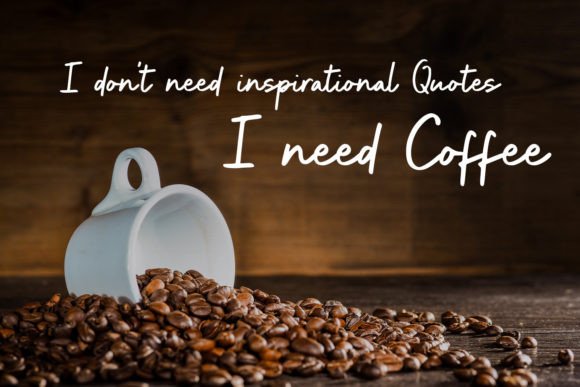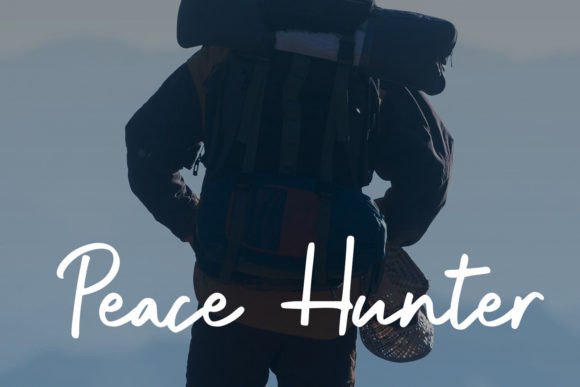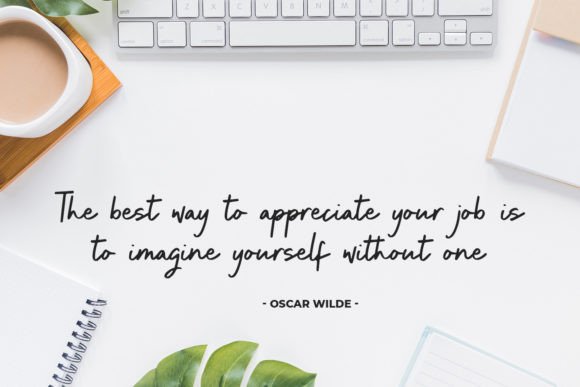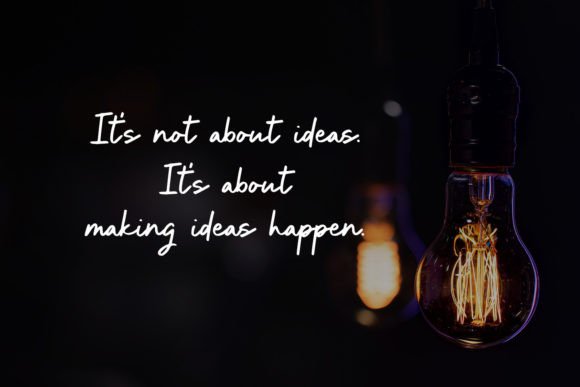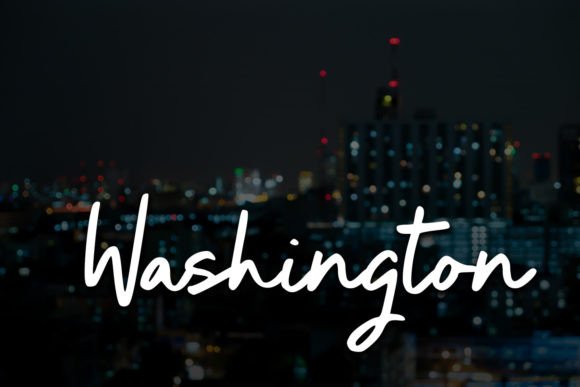
Discover the Charm of Authenticity Font: Elevate Your Designs with a Casual Handwriting Touch
In the world of typography, fonts play a crucial role in conveying the tone and personality of a design. For designers and crafters looking to add a personal touch to their projects, the Authenticity font is a gem worth exploring. This casual handwriting font is perfect for a variety of applications, from quotes and cards to banners and social media posts. In this article, we’ll dive into the details of the Authenticity font, its features, and how you can incorporate it into your designs to give them a simple yet elegant flair.
What is Authenticity Font?
Authenticity font is a beautifully crafted casual handwriting font designed to bring a sense of warmth and personality to your designs. Its unique, flowing script is reminiscent of handwritten text, making it perfect for projects that require a personal touch. Whether you’re working on a quote, a greeting card, or a social media post, the Authenticity font is sure to add a touch of elegance and sophistication.
Key Features of Authenticity Font
So, what makes the Authenticity font stand out? Here are some of its key features:
- Casual Handwriting Style: The Authenticity font boasts a casual, handwriting-like style that’s perfect for creating a personal connection with your audience.
- Elegant and Simple: Despite its casual nature, the font is elegant and simple, making it versatile for various design applications.
- Easy to Read: The font’s clear and flowing script ensures that your text is easy to read, even at smaller sizes.
- Versatile: From quotes and cards to banners and social media posts, the Authenticity font can be used in a wide range of design projects.
Uses of Authenticity Font
The Authenticity font is incredibly versatile and can be used in a variety of design projects. Here are some ideas to get you started:
- Quotes: Add a personal touch to your quotes with the Authenticity font. Its elegant script is perfect for making inspirational and thought-provoking quotes stand out.
- Cards: Whether you’re designing greeting cards, thank-you cards, or birthday cards, the Authenticity font is a great choice for adding a personal touch.
- Banners: Create eye-catching banners for events, promotions, or announcements with the Authenticity font. Its clear and elegant script is sure to grab attention.
- Social Media: Use the Authenticity font to create engaging social media posts that stand out from the crowd. Its casual yet elegant style is perfect for connecting with your audience.
Tips for Using Authenticity Font
To get the most out of the Authenticity font, here are some tips to keep in mind:
- Pair with Other Fonts: Experiment with pairing the Authenticity font with other fonts to create visual interest and hierarchy in your designs.
- Use in Moderation: While the Authenticity font is elegant and simple, using it in moderation is key. Avoid overusing the font in a single design, as it can become overwhelming.
- Adjust Font Size and Color: Play around with different font sizes and colors to create visual interest and emphasize certain parts of your design.
The Authenticity font is a beautiful and versatile casual handwriting font that’s perfect for adding a personal touch to your designs. Its elegant and simple script makes it suitable for a wide range of applications, from quotes and cards to banners and social media posts. By incorporating the Authenticity font into your designs, you can create visually appealing and engaging projects that connect with your audience. So, why not give it a try and see how it can elevate your designs?